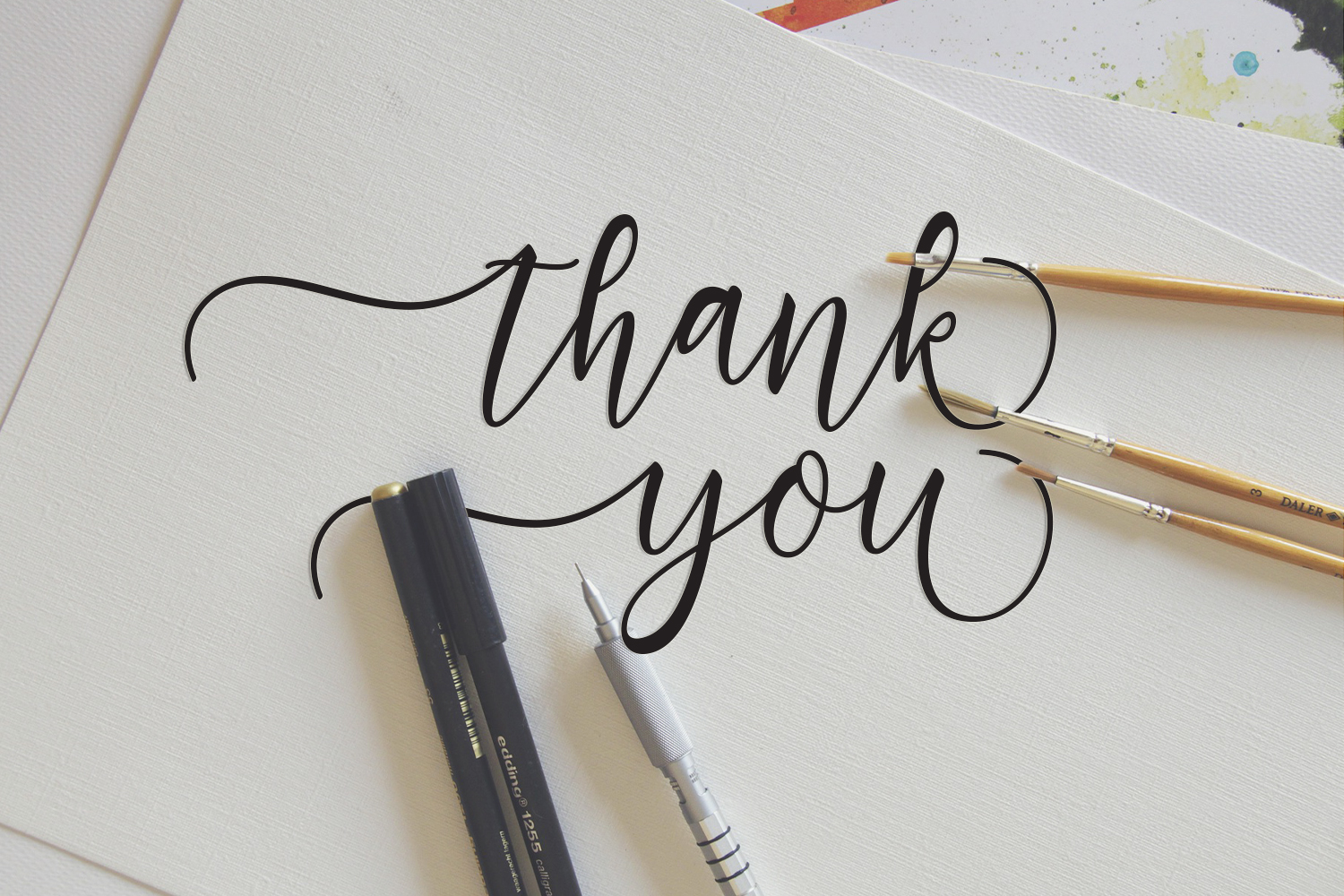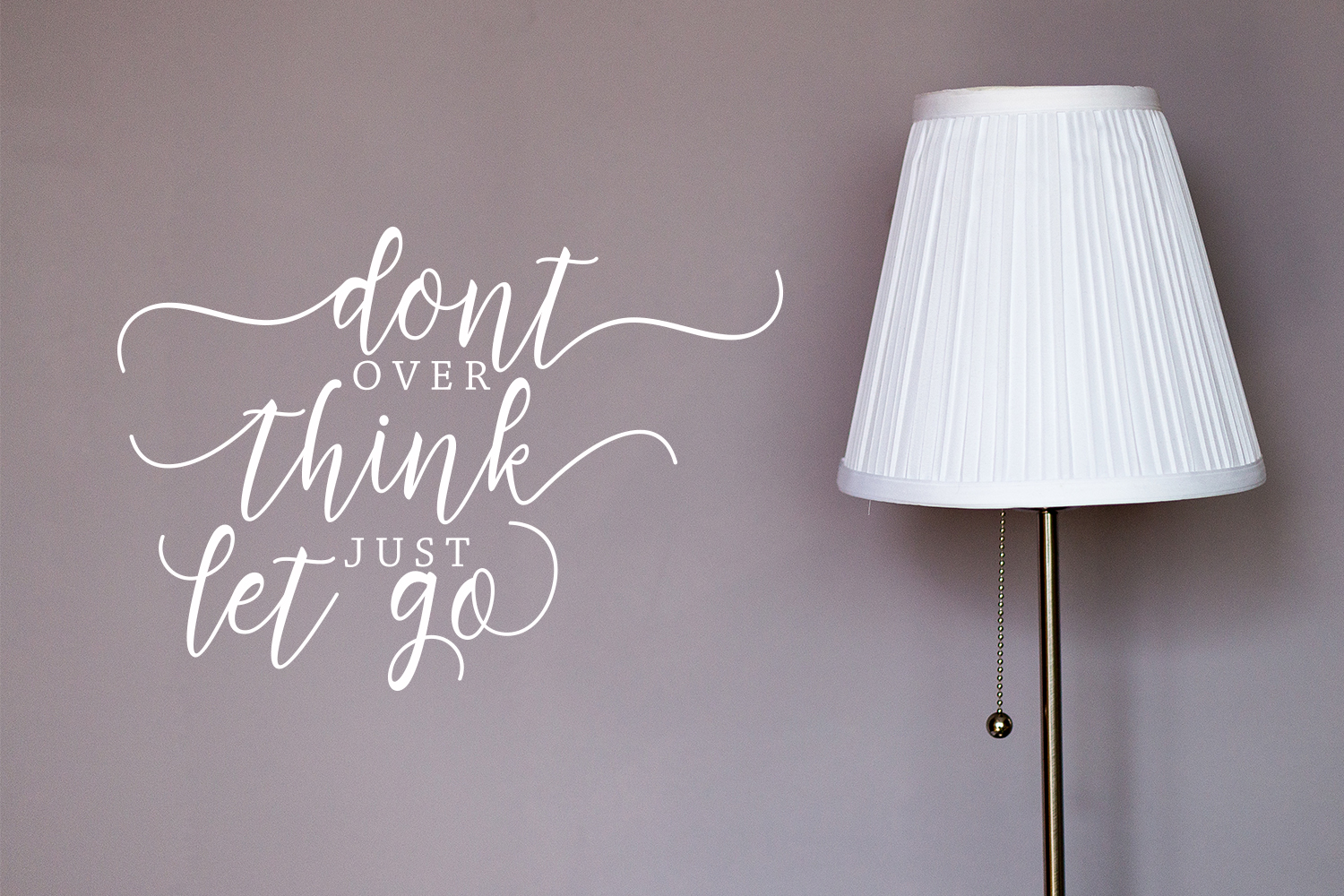
Fatimah Script Font
Fatimah Script Font by Mariyana 16,712 downloads
Fatimah Script Font
Fatimah is a flowing handwritten font, described by an elegant touch, perfect for your favorite projects. Fall in love with its incredibly distinct and timeless style and use it to create spectacular designs!